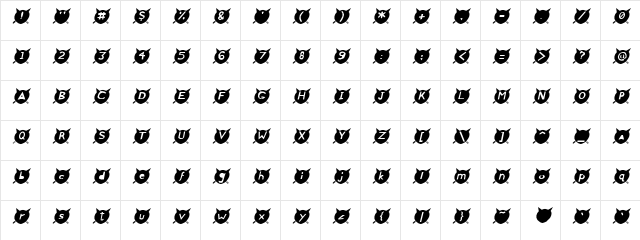
CatsMeow is a composed and adaptable typeface that performs quietly and consistently across a wide range of design contexts. The slanted form adds forward momentum and visual energy.